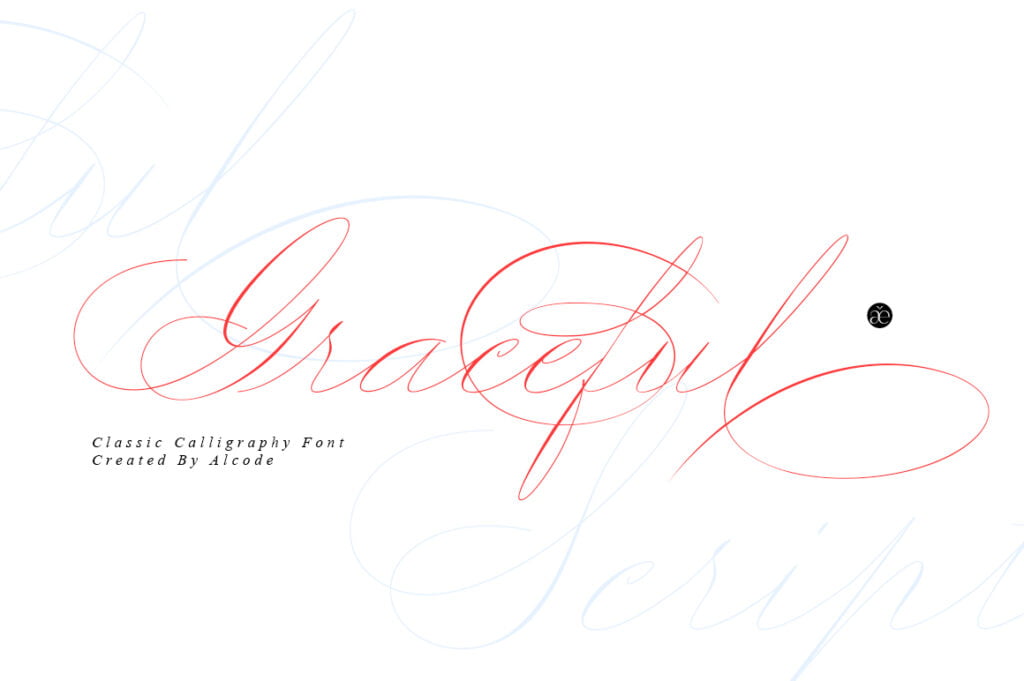
Graceful Font
Graceful feels equally charming and elegant. This stunning calligraphy script font is a stylish homage to classic calligraphy. It features a varying baseline, smooth lines, gorgeous glyphs and stunning alternates.
Graceful Calligraphy Script Font